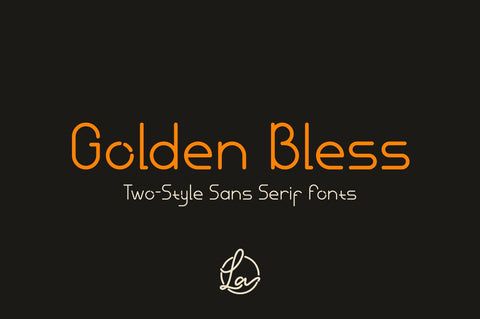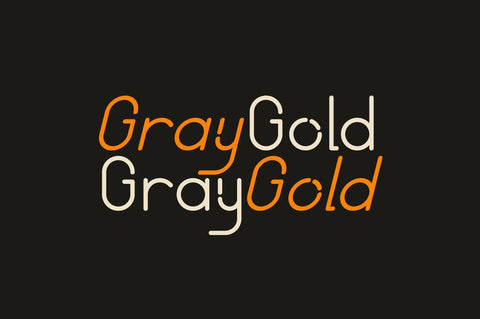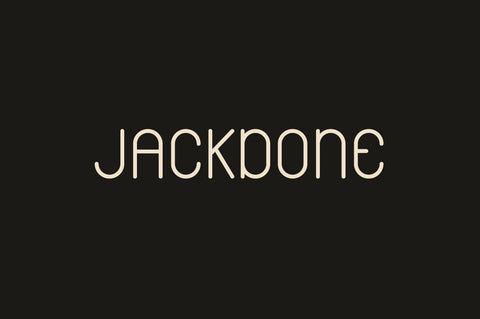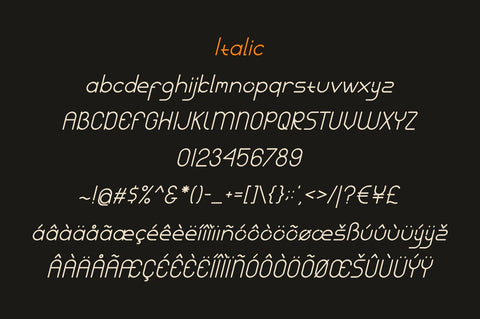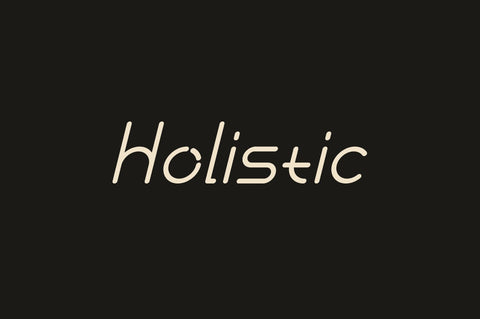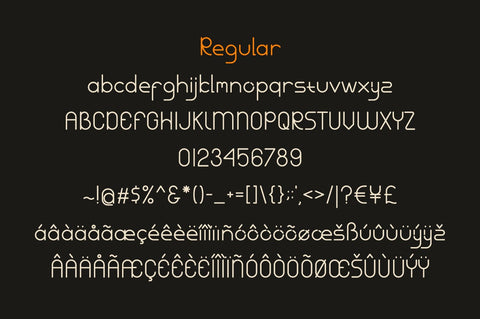
Golden Bless - Sans Serif Fonts
Hi! Golden Bless is a very modern Sans Serif style font with an elegant and beautiful monoline style. This font is very compatible so it's very easy to use. Suitable for designs of minimalist logos. The font is suitable for creating wordmarks, titles, taglines. Use alternates to emphasize separate letters in your text.